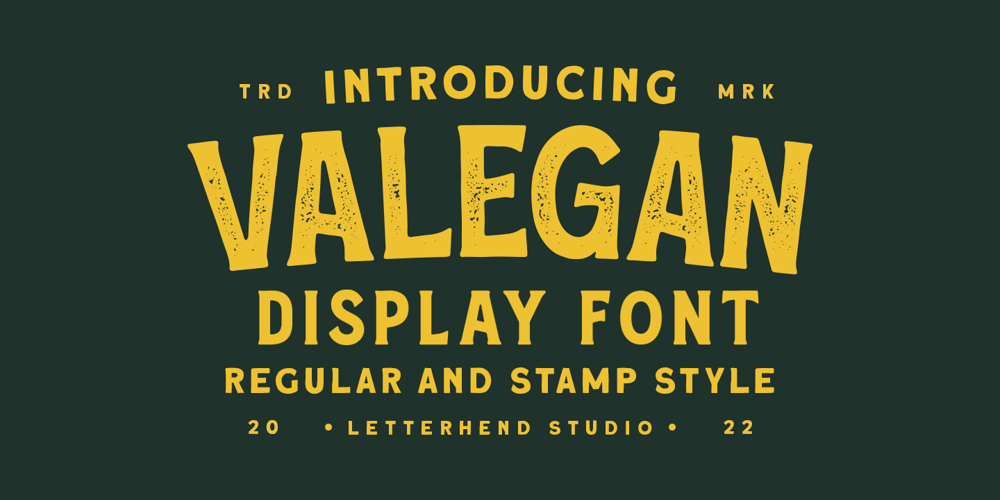
Valegan Font Family was designed by Hendry Juanda and published by Letterhend. Valegan contains 2 styles and family package options. Introducing, Valegan Display Font, display font with a touch of vintage look and feel. This font duo is also perfectly made to be applied especially in logo, headline, signage and the other various formal forms such as invitations, labels, logos, magazines, books, greeting / wedding cards, packaging, fashion, make up, stationery, novels, labels or any type of advertising purpose.Features : Regular & Stamp Style uppercase & lowercase numbers and punctuation multilingual alternates / swashes and ligatures PUA encoded We highly recommend using a program that supports OpenType features and Glyphs panels like many of Adobe apps and Corel Draw, so you can see and access all Glyph variations. How to access opentype feature : letterhend.com/tutorials/using-opentype-feature-in-any-software/Email us to letterhend@gmail.com if you need something! Happy Designing!